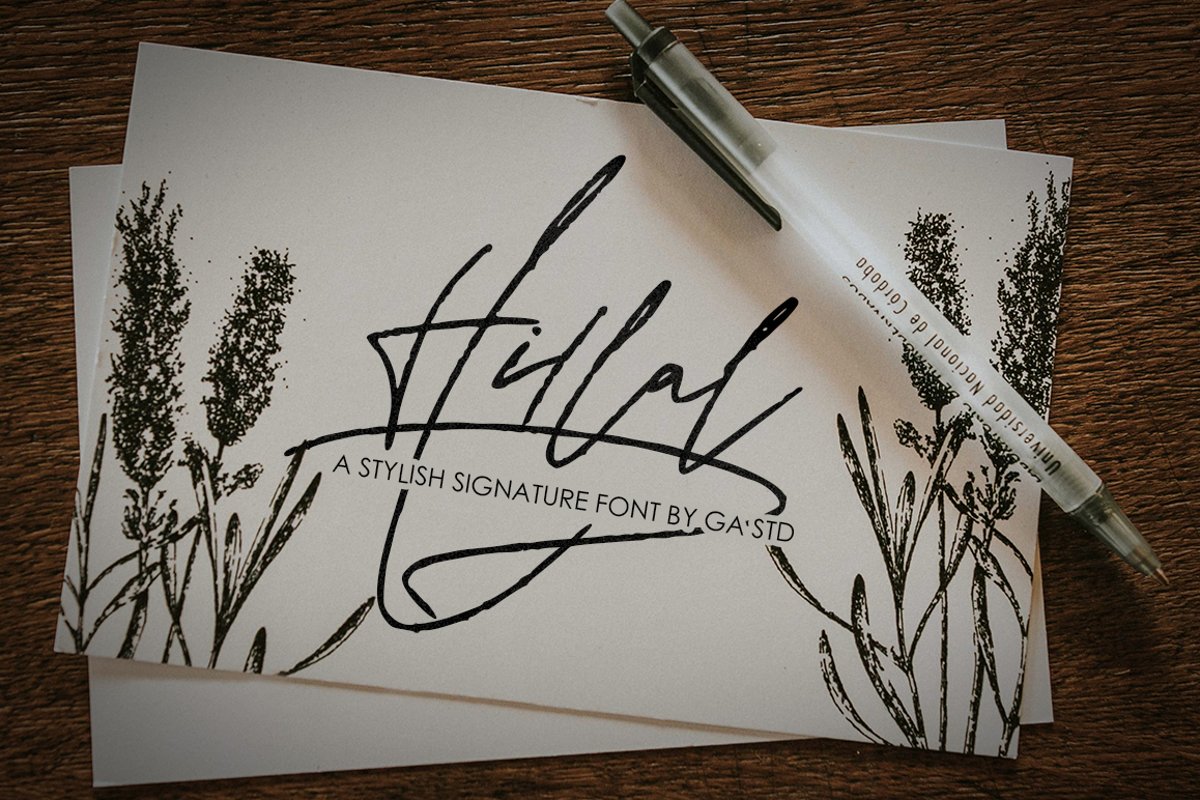
Hillal - A Stylish Signature Font
Hillal
Introducing Hillal - A Stylish Signature Font
Hillal is a Stylish Signature Font with Modern Style. This font is perfect for fashion brand, apparel, shoes company, wedding invitation, business card, logo brand, clothing, and also business brand name like Coffeshop or taylor.
This Font Template contains Classy, Elegant, Creative, Cool and has a Unique Concept.
Ligatures
Stylistic Alternates
Swash
Uppercase and Lowercase letters
Numbering and Punctuations
Multilingual Support
Hillal - A Stylish Signature Font